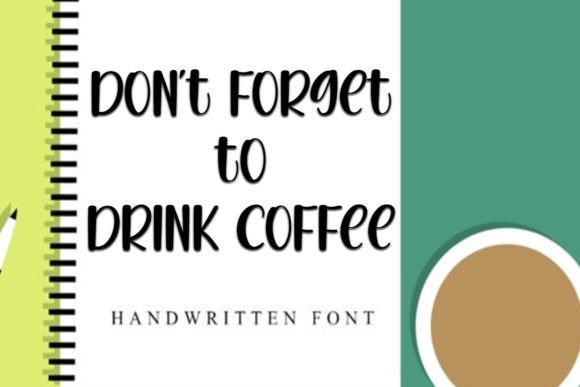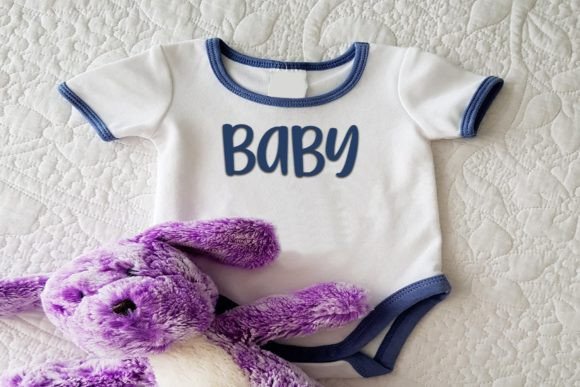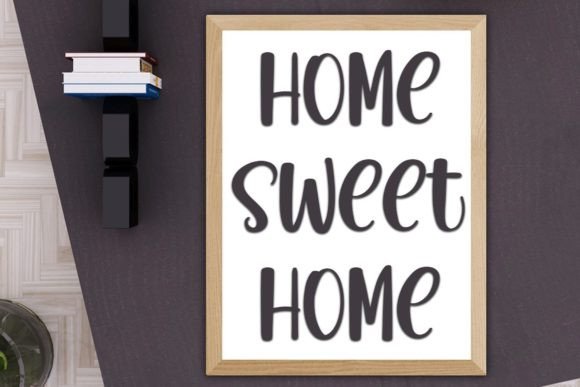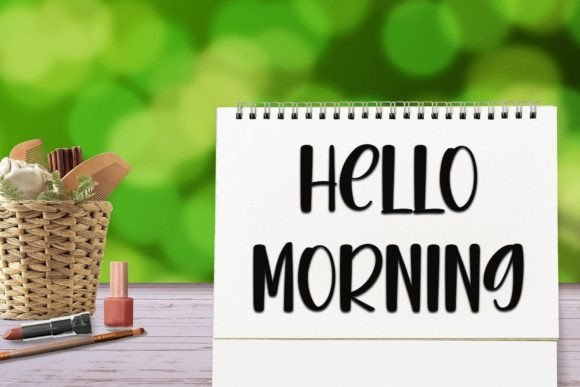
Introducing Farmhouse Font: Elevate Your Designs with Timeless Elegance
Are you on the hunt for a font that exudes style, sophistication, and a touch of rustic charm? Look no further than Farmhouse Font, a stunning handwritten typeface that brings a contemporary atmosphere to your designs. Inspired by the beauty of classic calligraphy, Farmhouse Font is the perfect addition to any design project, from crafting and DIY blogs to wedding invitations and branding materials.
The Inspiration Behind Farmhouse Font
Farmhouse Font draws its inspiration from the timeless world of classic calligraphy, where the art of beautiful handwriting meets elegant typography. With its roots in traditional calligraphy, Farmhouse Font brings a sense of nostalgia and warmth to your designs, while its modern twist ensures it remains fresh and relevant. The result is a font that feels both vintage and contemporary, making it an incredibly versatile choice for designers and crafters alike.
So, what makes Farmhouse Font so special? Here are just a few of its key features:
- Handwritten with love: Farmhouse Font is a beautifully handwritten font, crafted with care and attention to detail to ensure that every letter and character feels personal and unique.
- Contemporary atmosphere: While Farmhouse Font is inspired by classic calligraphy, its design has been carefully refined to give it a distinctly modern feel that’s perfect for contemporary design projects.
- Impeccable form: With its balanced and varied letterforms, Farmhouse Font is a font that’s both easy to read and visually stunning, making it perfect for use in a wide range of design applications.
Using Farmhouse Font in Your Designs
One of the best things about Farmhouse Font is its incredible versatility. Whether you’re a designer, crafter, or DIY enthusiast, this font can be used in a wide range of projects, including:
- Branding and packaging: Use Farmhouse Font to add a touch of elegance and sophistication to your brand’s packaging and marketing materials.
- Wedding invitations and stationery: Farmhouse Font is perfect for wedding invitations, save-the-dates, and other stationery, where its classic charm and romantic feel can shine.
- Crafting and DIY blogs: Add a personal touch to your blog or website with Farmhouse Font, which is perfect for headings, titles, and other display text.
- Signs and displays: Use Farmhouse Font to create eye-catching signs and displays for your business, home, or special event.
Why Choose Farmhouse Font?
With so many fonts to choose from, why should you choose Farmhouse Font for your next design project? Here are just a few reasons:
- Unique and distinctive: Farmhouse Font is a one-of-a-kind typeface that’s sure to set your designs apart from the crowd.
- Easy to use: With its clear and legible letterforms, Farmhouse Font is easy to use in a wide range of design applications, from print to digital.
- Timeless appeal: Inspired by classic calligraphy, Farmhouse Font has a timeless appeal that will never go out of style.